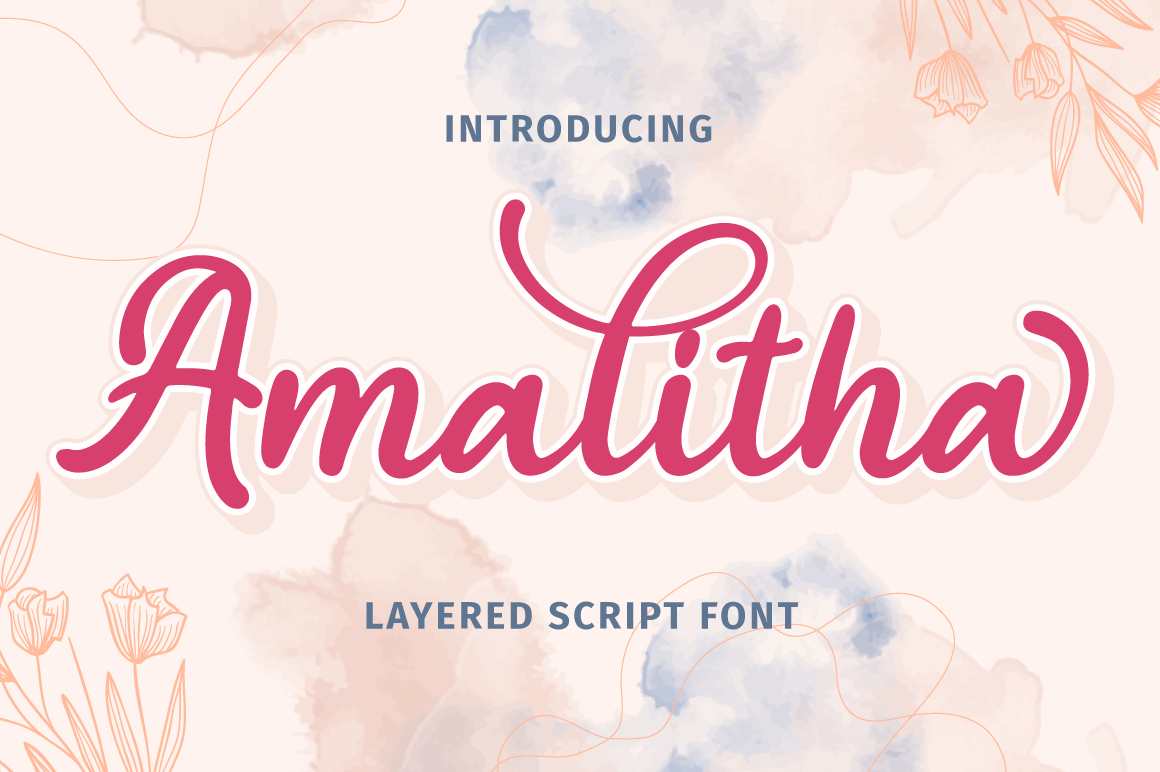
Amalitha - Layered Script Font
Amalitha is a Layered script font with stylistic set. Combine Amalitha with extrude & outline version to get amazing 3D letterform! Fall in love with its incredibly versatile style and use it to create spectacular designs!
Amalitha is perfect for branding, logo, invitation, quotes, apparel design, product packaging, merchandise, game titles, cute style design, Book/Cover Title and more.
- Stylistic Set character